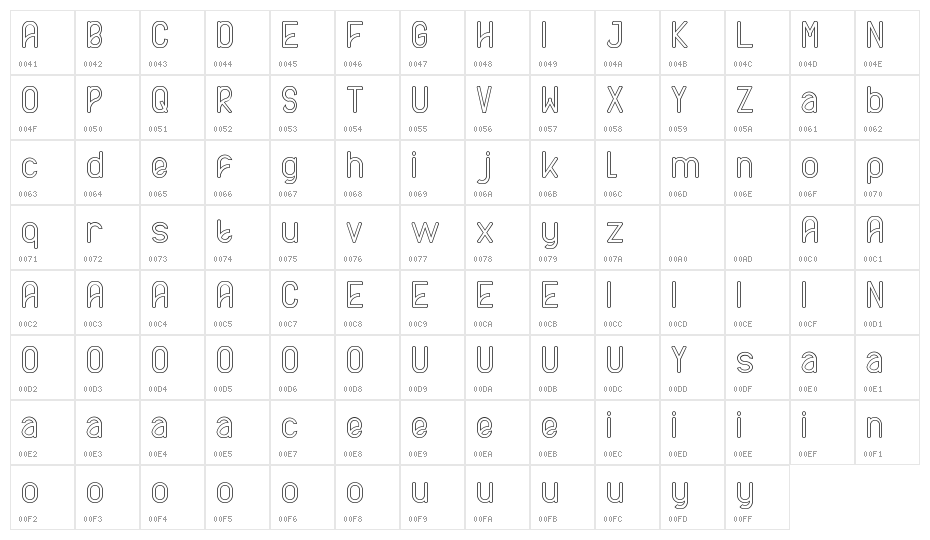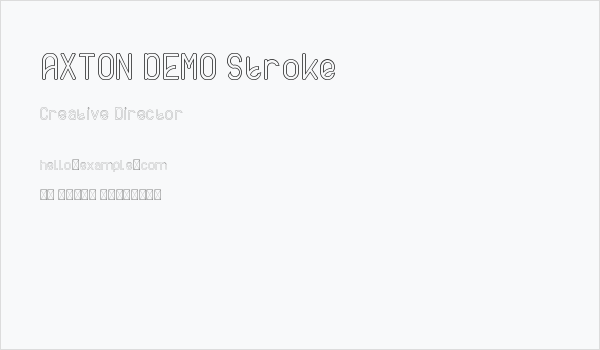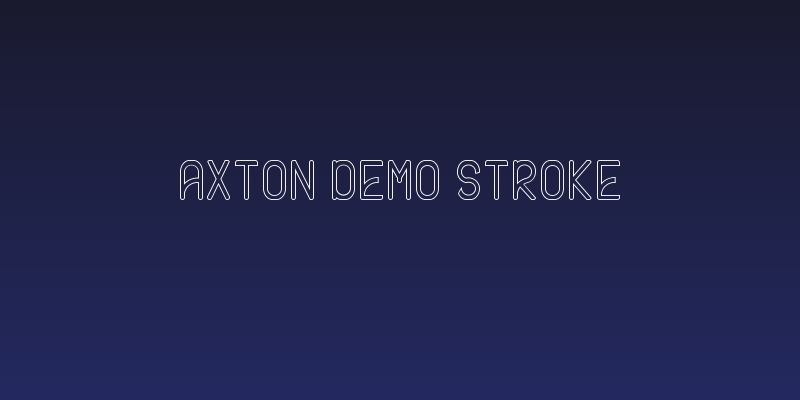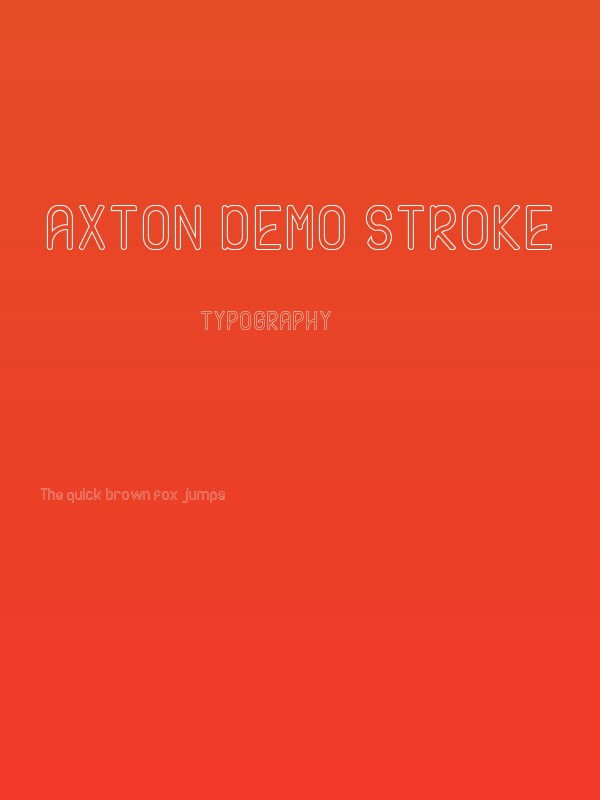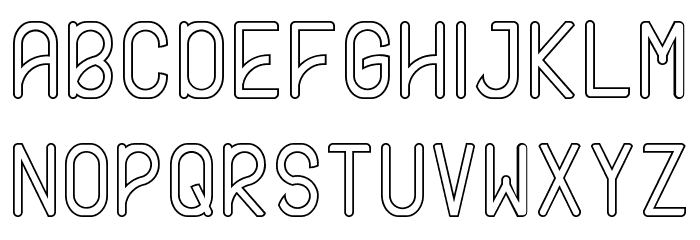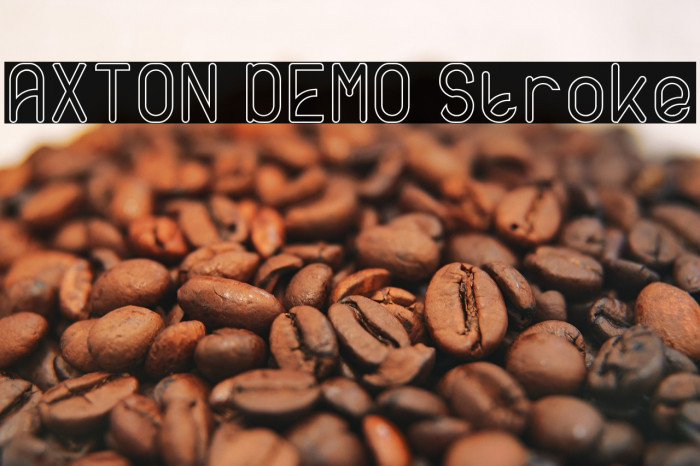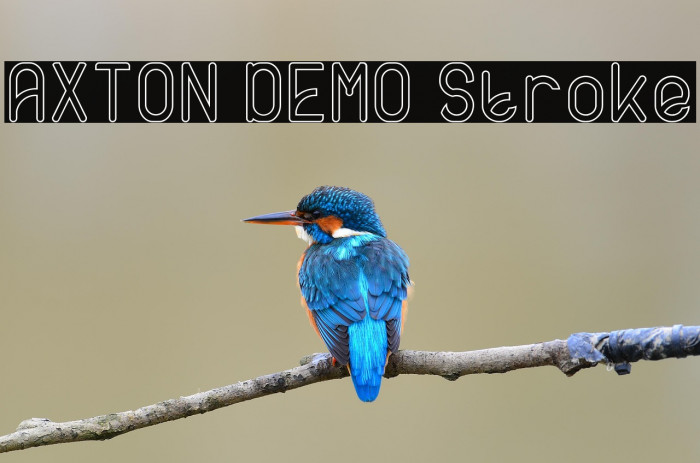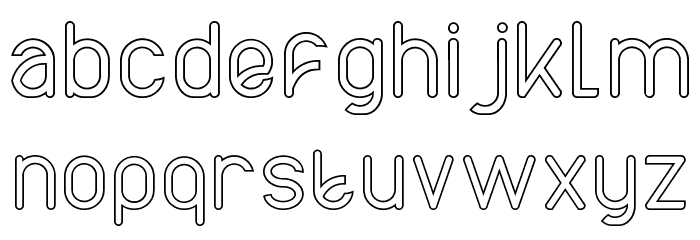
AXTON DEMO Stroke Font
AXTON DEMO Stroke Description
This font features a modern, geometric design with a hollow stroke style, giving it a unique and contemporary look. The characters are constructed with clean, straight lines and rounded edges, creating a sense of uniformity and balance. The uppercase and lowercase letters maintain a consistent height and width, enhancing readability while adding a touch of elegance. The numbers and special characters follow the same design principles, ensuring a cohesive appearance across all elements. This font is ideal for projects that require a stylish and modern aesthetic, such as branding, advertising, and digital media.